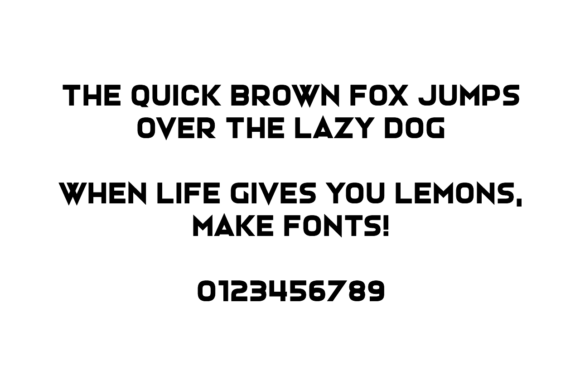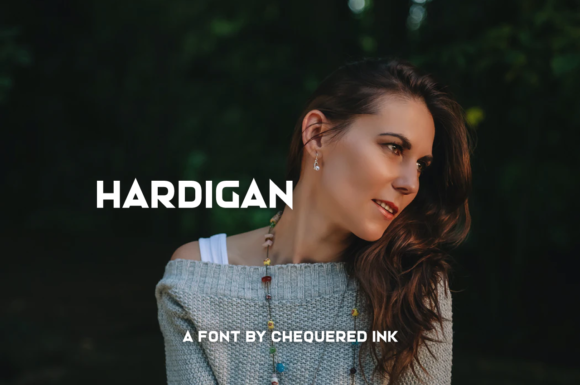
Introducing Hardigan Font: The Ultimate Playful Techno Font for Modern Designs
Are you tired of using the same old fonts in your designs? Do you want to add a sharp, modern feel to your creations? Look no further than Hardigan Font, a playful techno font that’s perfect for designers and crafters alike. In this article, we’ll dive into the world of Hardigan Font, exploring its features, benefits, and uses, as well as provide tips and tricks for incorporating it into your designs.
What is Hardigan Font?
Hardigan Font is a unique and modern font that’s designed to add a touch of playfulness and sophistication to your designs. With its techno-inspired aesthetic, Hardigan Font is perfect for creating bold, eye-catching designs that demand attention. Whether you’re working on a logo, brochure, or website, Hardigan Font is sure to make your design stand out from the crowd.
Key Features of Hardigan Font
- Playful and Modern Design: Hardigan Font boasts a playful and modern design that’s perfect for creating fresh and exciting designs.
- Techno-Inspired Aesthetic: With its techno-inspired aesthetic, Hardigan Font is ideal for designs that require a bold and edgy look.
- Highly Versatile: Hardigan Font can be used for a wide range of design projects, from logos and brochures to websites and social media graphics.
- Easily Readable: Despite its bold and playful design, Hardigan Font is highly readable, making it perfect for body text and headlines.
Benefits of Using Hardigan Font
So why should you choose Hardigan Font for your designs? Here are just a few benefits of using this amazing font:
- Adds a Modern Touch: Hardigan Font adds a sharp, modern feel to your designs, making them look fresh and exciting.
- Increases Readability: With its clear and readable design, Hardigan Font ensures that your message gets across to your audience.
- Versatile and Flexible: Hardigan Font can be used for a wide range of design projects, making it a great addition to your font library.
- Unique and Creative: Hardigan Font’s playful and techno-inspired design makes it a unique and creative choice for designers.
Using Hardigan Font in Your Designs
So how can you incorporate Hardigan Font into your designs? Here are a few tips and tricks to get you started:
- Pair with Other Fonts: Hardigan Font pairs well with other fonts, such as sans-serif fonts like Arial or Helvetica.
- Use for Headlines and Titles: Hardigan Font is perfect for headlines and titles, where its bold and playful design can really shine.
- Add a Pop of Color: Use Hardigan Font to add a pop of color to your designs, making them more eye-catching and engaging.
- Experiment with Different Sizes: Don’t be afraid to experiment with different sizes and styles of Hardigan Font to create visual interest.
| Font Name | Hardigan Font |
| Author | Chequered Ink |
In conclusion, Hardigan Font is a playful techno font that’s perfect for adding a sharp, modern feel to your designs. With its unique and creative design, highly readable text, and versatility, Hardigan Font is a great addition to any designer’s font library. Whether you’re working on a logo, brochure, or website, Hardigan Font is sure to make your design stand out from the crowd. So why not give it a try and see the difference it can make in your designs?